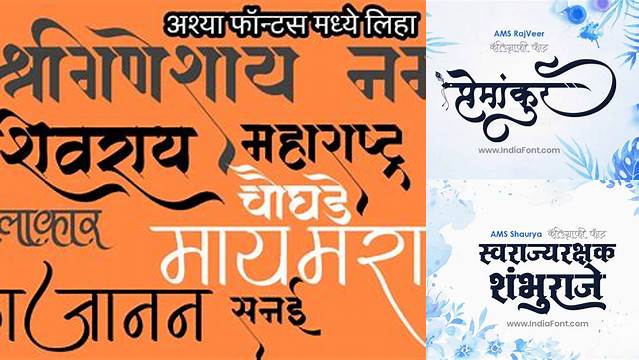
Copy Paste Marathi Fonts: A Simple How-to Guide
Introduction: Unleashing the Beauty of Marathi Typography
Marathi fonts are integral to preserving and promoting the rich cultural heritage of Maharashtra, India. The ability to copy and paste different Marathi fonts seamlessly is crucial for various applications, including graphic design, web development, content creation, and social media engagement. This guide aims to provide a comprehensive understanding of how to effectively copy and paste Marathi fonts across different platforms and applications, ensuring that your creative endeavors are both aesthetically pleasing and technically sound. Let's dive into the fascinating world of Marathi typography and explore the myriad ways you can use these fonts to enhance your work. Marathi, a language steeped in history and tradition, deserves to be represented with the utmost elegance and clarity. By mastering the techniques outlined in this guide, you'll be well-equipped to do just that. Whether you're designing a poster, crafting a website, or simply sharing a heartfelt message on social media, the right Marathi font can make all the difference. So, gear up to unlock the full potential of Marathi fonts and add a touch of cultural richness to your projects!
The significance of fonts extends beyond mere aesthetics. Fonts play a pivotal role in conveying the tone and mood of a message. A well-chosen Marathi font can evoke feelings of nostalgia, reverence, or even modernity, depending on the context. For instance, a traditional font might be ideal for a religious text or a historical document, while a contemporary font might be more suitable for a website targeting a younger audience. The ability to mix and match fonts effectively is a skill that can significantly enhance your design capabilities. Experiment with different combinations to discover what works best for your specific needs. Remember, the key is to create a visual hierarchy that is both pleasing to the eye and easy to read. Furthermore, understanding the nuances of Marathi script and typography can help you avoid common pitfalls, such as using fonts that are not compatible with certain platforms or applications. This guide will provide you with the knowledge and tools you need to navigate these challenges and ensure that your Marathi text always looks its best.
Copying and pasting Marathi fonts might seem like a straightforward task, but it can sometimes present unexpected challenges. These challenges often arise due to compatibility issues between different operating systems, software applications, and font encoding standards. For example, a font that looks perfect on your computer might appear garbled or distorted when viewed on another device. Similarly, some older software programs might not fully support Unicode, which is the standard for encoding Marathi script. Understanding these potential pitfalls is the first step towards overcoming them. In this guide, we will explore various troubleshooting techniques and best practices that can help you ensure consistent results across different platforms. We'll also delve into the technical aspects of font encoding and discuss the importance of using Unicode-compliant fonts whenever possible. By addressing these issues head-on, you can avoid frustrating setbacks and focus on creating impactful Marathi content. Remember, the goal is to make the process of copying and pasting Marathi fonts as seamless and efficient as possible, so that you can concentrate on the creative aspects of your work.
Understanding Marathi Fonts and Unicode
Understanding Marathi fonts begins with recognizing the script's unique characteristics and its encoding standards. Marathi is written in the Devanagari script, which is also used for Hindi and several other Indian languages. This script is characterized by its horizontal top line, from which the characters hang. The complexity of Devanagari script lies in its numerous conjuncts (combinations of consonants) and vowel signs, which can significantly alter the shape and appearance of a character. Therefore, choosing the right font is crucial to ensure legibility and aesthetic appeal. There are numerous Marathi fonts available, ranging from traditional styles that mimic handwriting to modern, stylized fonts that are suitable for digital media. Each font has its own unique personality and can convey a different mood or tone. Exploring the diverse range of Marathi fonts is an essential step in mastering Marathi typography. Experiment with different fonts to find the ones that best suit your particular needs and preferences. Consider factors such as the intended audience, the medium in which the text will be displayed, and the overall design aesthetic. By carefully selecting your fonts, you can ensure that your Marathi text is both visually appealing and easy to read.
Unicode is a universal character encoding standard that assigns a unique number to every character in almost all of the world's writing systems. For Marathi, Unicode is essential because it provides a consistent way to represent and display the characters across different platforms and applications. Before Unicode, Marathi text was often encoded using proprietary or non-standard methods, which led to compatibility issues and rendering problems. When a font is Unicode-compliant, it means that it contains the necessary information to display the characters correctly, regardless of the operating system, browser, or software being used. Using Unicode fonts is crucial for ensuring that your Marathi text is accessible and readable to a wide audience. In this guide, we will emphasize the importance of using Unicode fonts and provide tips for identifying and selecting them. We will also discuss the potential pitfalls of using non-Unicode fonts and how to avoid them. By understanding the role of Unicode in Marathi typography, you can ensure that your text is displayed accurately and consistently, no matter where it is viewed.
Exploring different Marathi fonts also involves understanding their specific features and limitations. Some fonts might be better suited for certain types of text, such as headings or body text. Others might have a more decorative or stylized appearance, making them ideal for graphic design projects. It's important to consider the intended use of the font before making a selection. For example, a font that is highly stylized might look great in a poster or logo, but it might be difficult to read in a long paragraph of text. Similarly, a font that is too plain or generic might not convey the desired tone or mood. By experimenting with different fonts and paying attention to their specific characteristics, you can develop a keen eye for Marathi typography and learn to choose the right font for every situation. This skill will not only enhance the visual appeal of your work but also improve its overall readability and effectiveness.